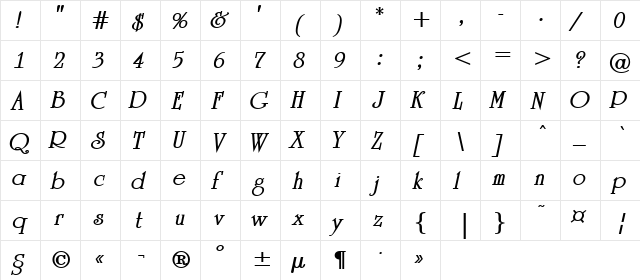
a_Romanus BoldItalic
Design Context for a_Romanus Typeface
a_Romanus offers clean, dependable letterforms without strong stylistic allegiance, making it a practical choice for designers who need flexibility. Its italic angle brings a sense of urgency and motion to the letterforms. The heavy weight commands attention and anchors typographic hierarchies.
Pro Tip: Try a_Romanus for annotation and caption copy alongside an upright companion — the contrast in angle creates a dynamic but ordered typographic system.